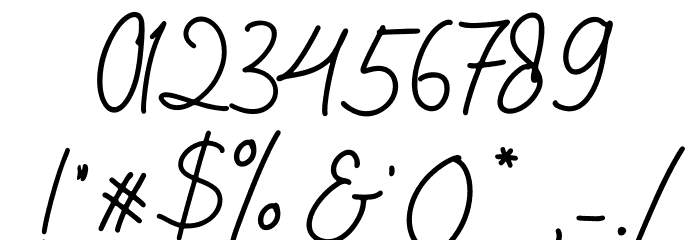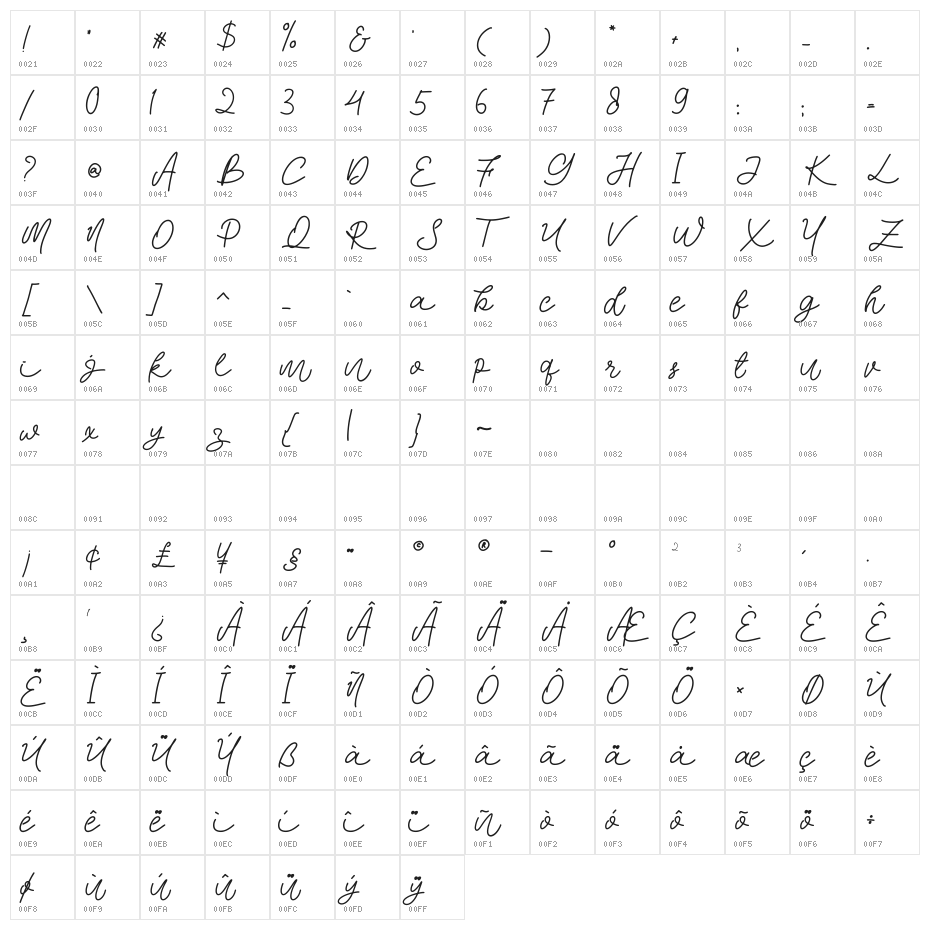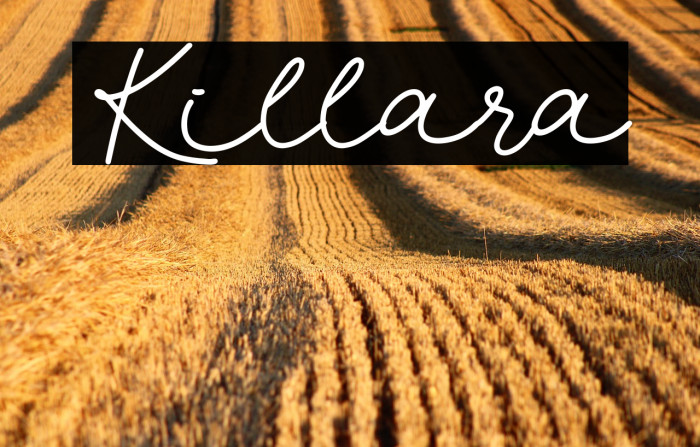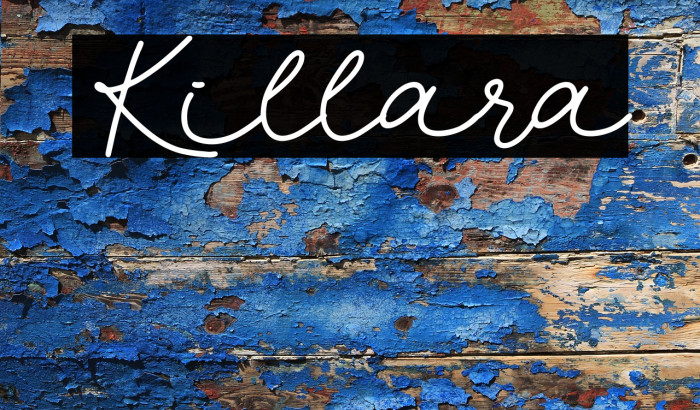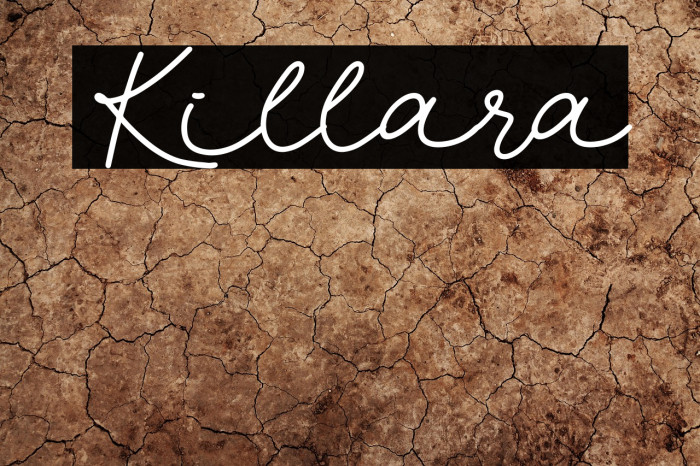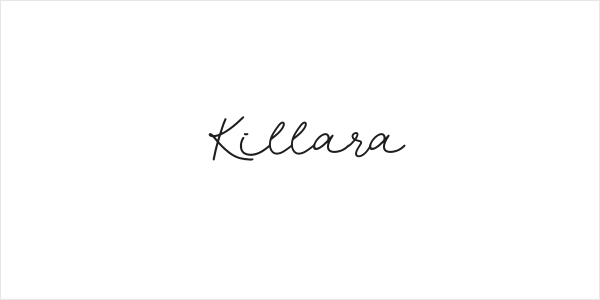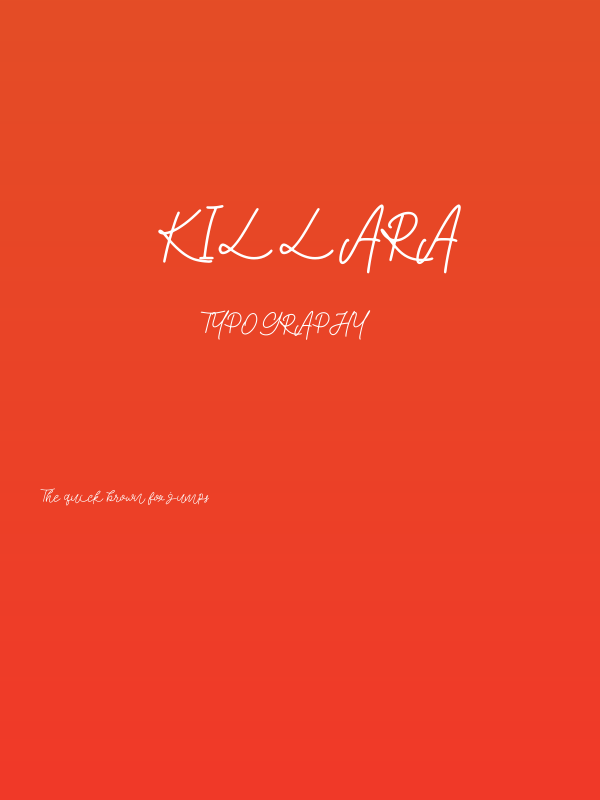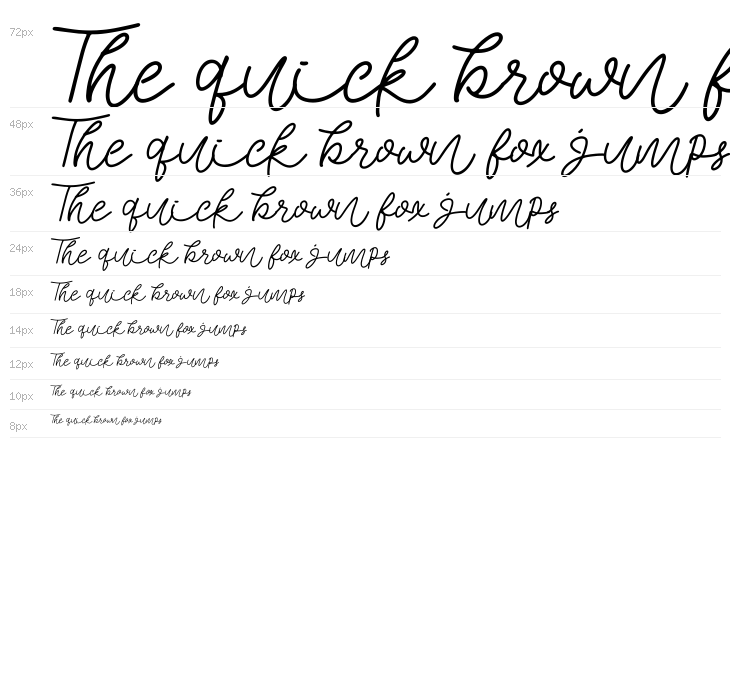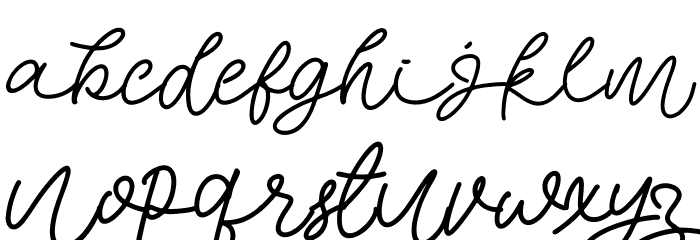
Killara Font
Killara Description
This font features a fluid, cursive style that mimics natural handwriting. The letters are connected, creating a seamless flow that is both elegant and casual. The uppercase letters are slightly larger and more pronounced, while the lowercase letters maintain a consistent height, enhancing readability. The numbers and special characters follow the same cursive style, ensuring uniformity across all characters. The strokes are smooth and rounded, giving the font a friendly and approachable feel. This font is ideal for projects that require a personal touch, such as invitations, greeting cards, or branding materials that aim to convey warmth and authenticity.
| Overall Style | Casual, Elegant |
| Proposed Projects | Ideal for invitations, greeting cards, personal branding, and any project requiring a warm, personal touch. |